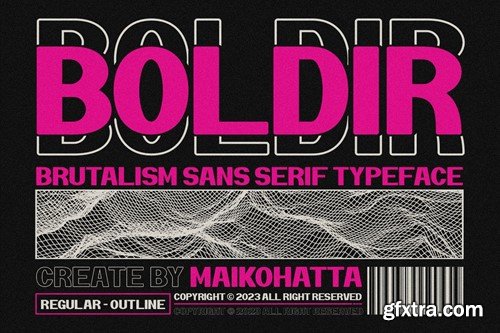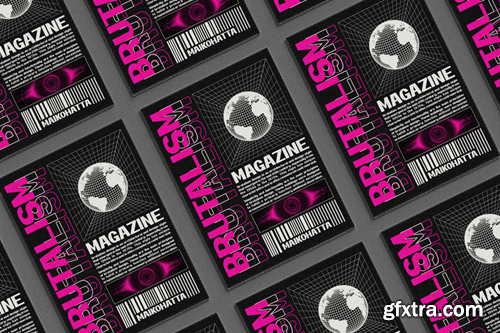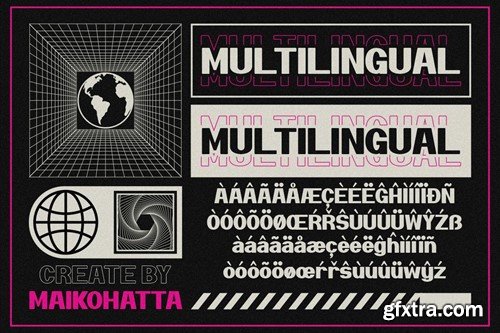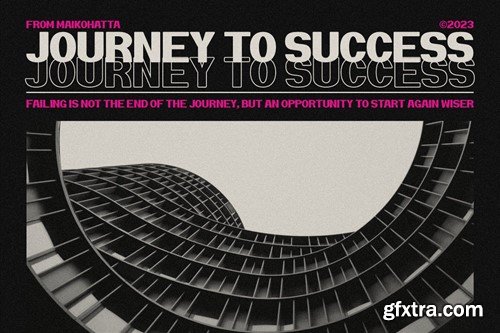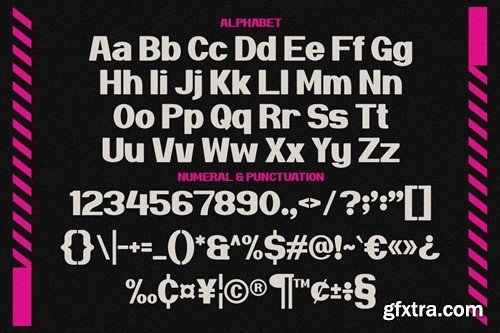
Boldir - Sans Serif 字型YBFRP46
Boldir - Sans serif Typeface
Introducing our new product Boldir Sans serif Typeface This Font is a very flexible choice and can be used in a variety of design contexts. Its ability to provide a clean, professional, contemporary look and its simplicity and visual appeal make this font good for use in the world of graphic design and modern typography. available Style